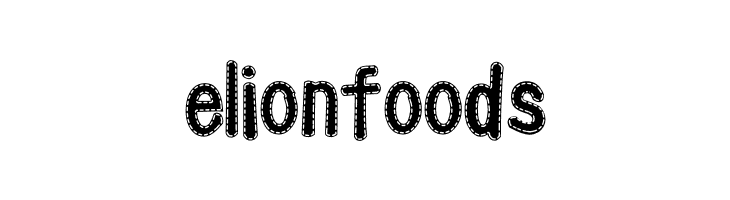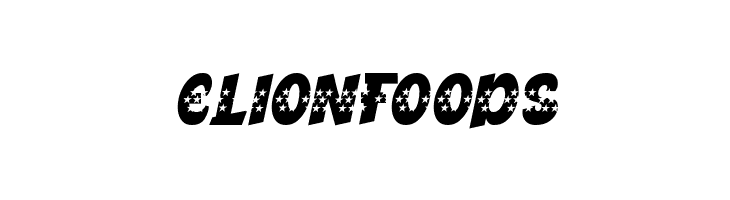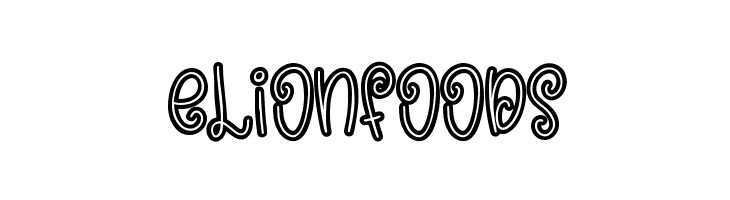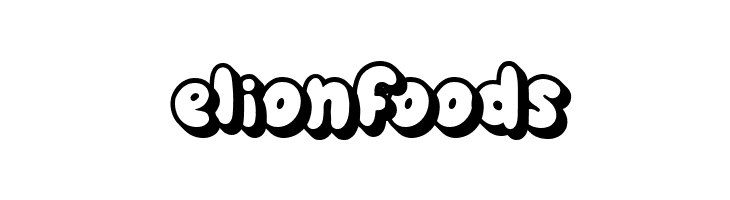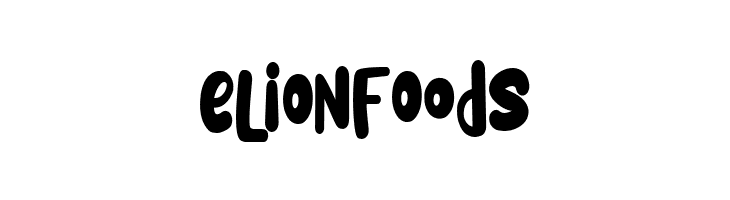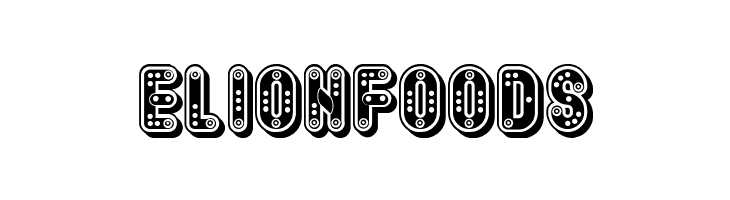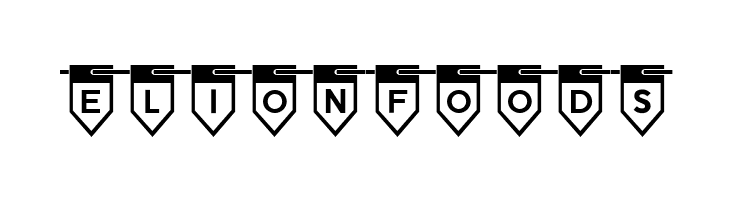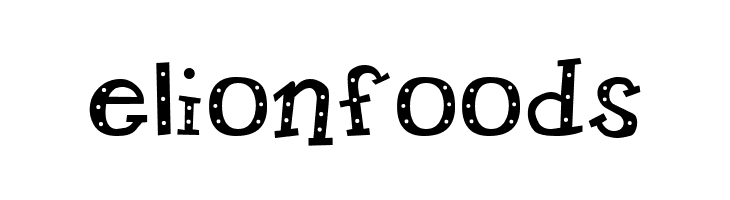
A playful, bubble-like font with dotted outlines and rounded characters.
A bold, italicized decorative font filled with star patterns, perfect for playful designs.
A playful, hand-drawn font with bold, rounded outlines and a whimsical style.
A playful, bold font with a 3D extruded effect and rounded, cartoonish style.
A bold, playful handwritten font with a lively and energetic style.
A bold, decorative font with playful circular cutouts and a strong visual impact.
A bold, decorative font with a dotted marquee style, perfect for festive designs.
A playful, decorative font with characters enclosed in flag-like shapes, ideal for festive designs.
A playful, dotted font with a hand-drawn, whimsical style.